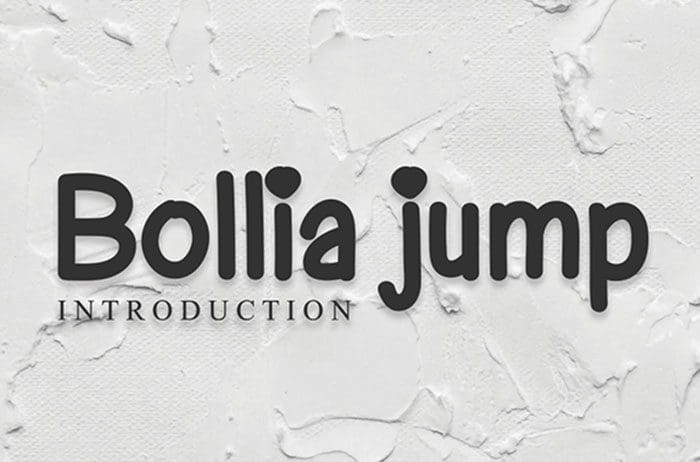
Bollia Jump Serif Font
Bollia Jump simplifies elegance into one truly outstanding serif font. This font is the perfect fit for all of your logos, branding, social media, and crafty DIY projects. Designed this font by Andika Studio. You can also search more freeĀ Serif Fonts.